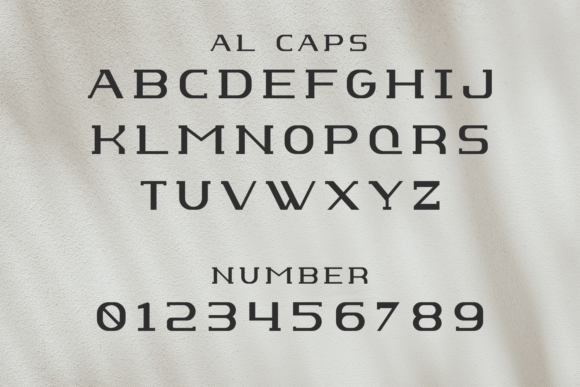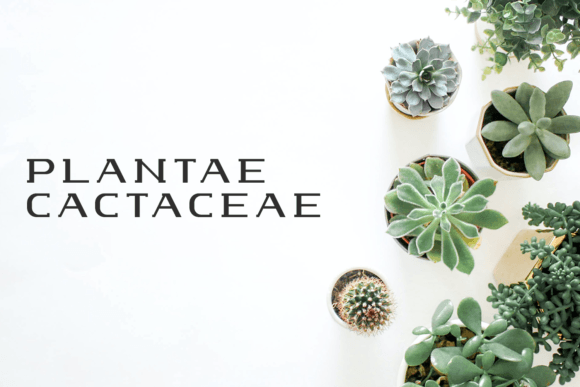
Baoru Slab Font
BAORU SLAB FONT SPECIMEN
Baoru Slab is a modern and stylish slab serif font that is perfect for a wide pool of design ideas. The only limit is your imagination!